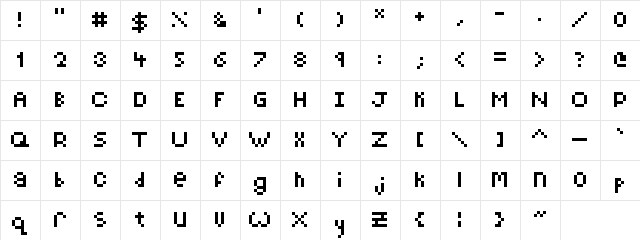
License to Pixel Tall Regular
Design Context for License to Pixel Tall Typeface
License to Pixel Tall celebrates the constraints of early digital type, turning pixel geometry into a distinctive and immediately recognisable style.
A natural choice for retro game titles, chiptune music branding, 8-bit UI, and digital nostalgia projects.
Pro Tip: Pair License to Pixel Tall with flat colour palettes and simple geometric UI elements to reinforce its digital aesthetic.